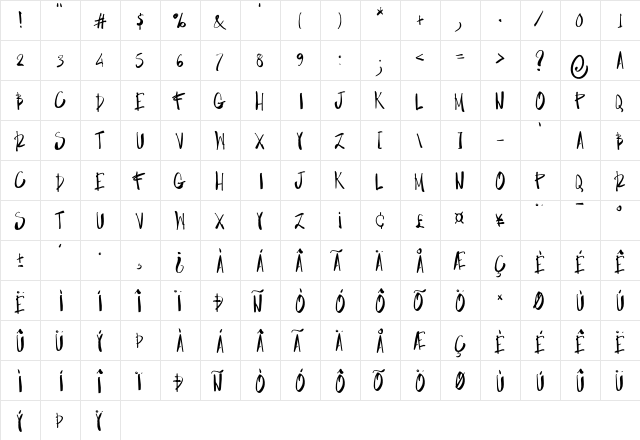
NF-NERRES Regular
| Designer | Konstantina Louka |
Design Context for NF-NERRES Typeface
NF-NERRES is a composed and adaptable typeface that performs quietly and consistently across a wide range of design contexts.